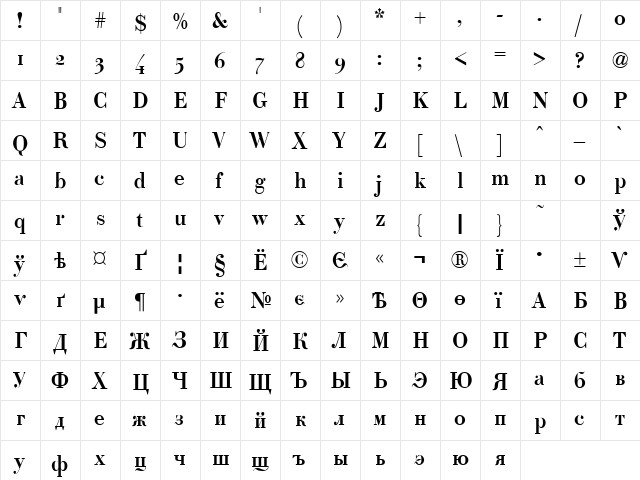
ELIZ_AZ_PS Regular
ELIZ_AZ_PS takes a measured approach to typography — its balanced proportions and neutral character make it a reliable workhorse for both digital and print work.